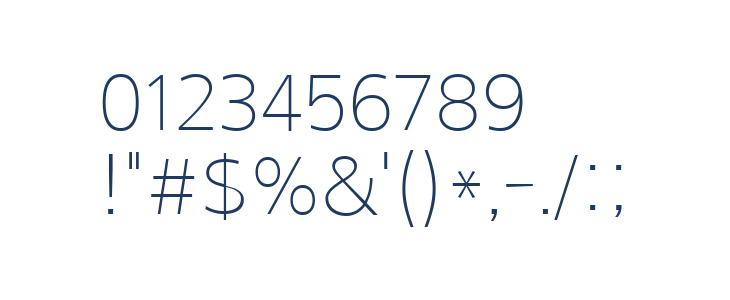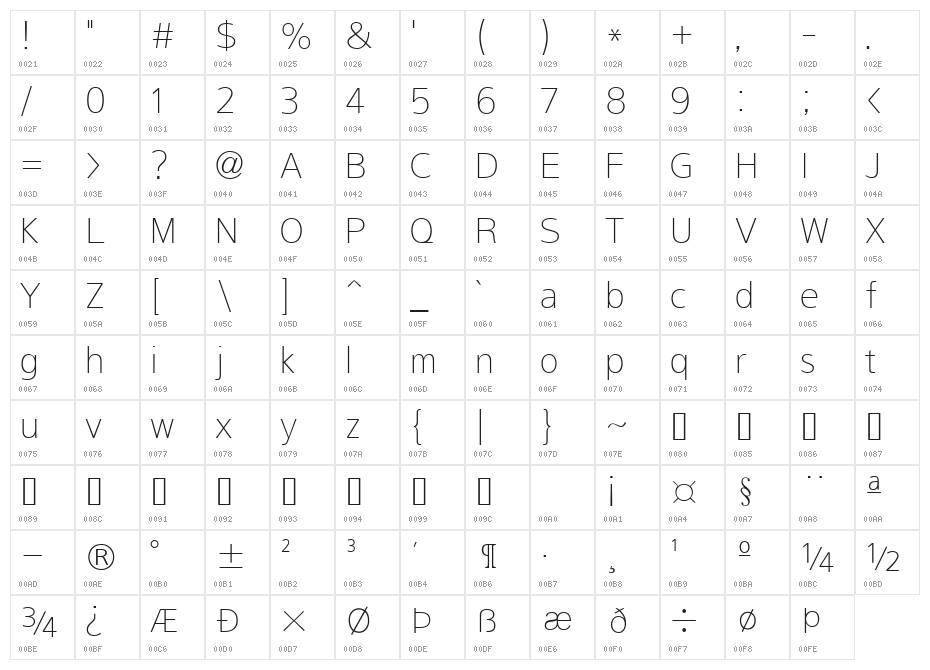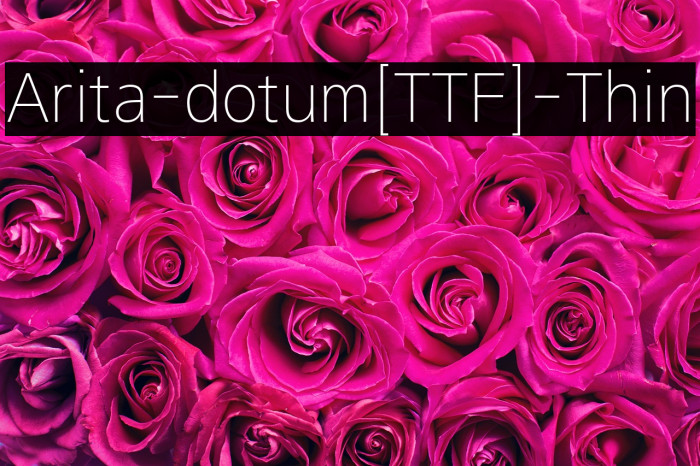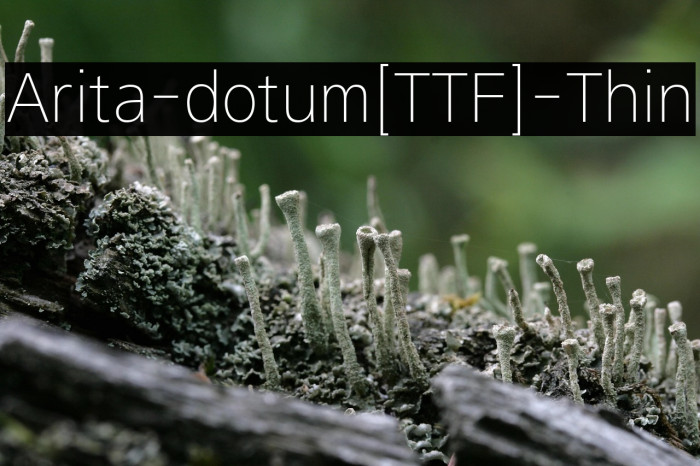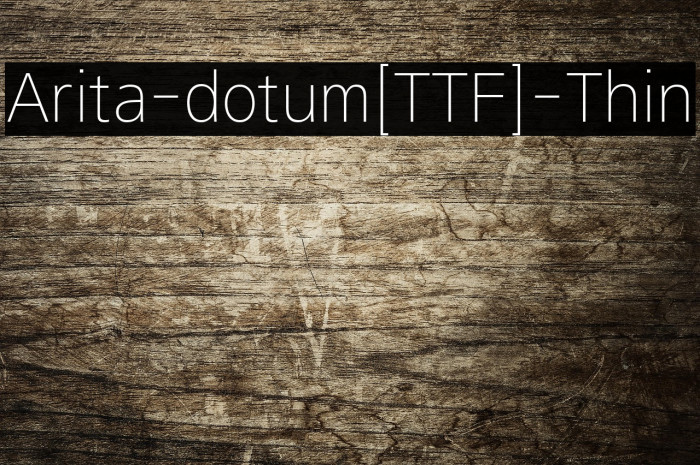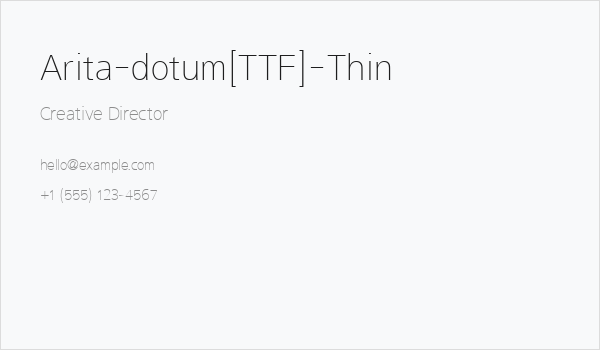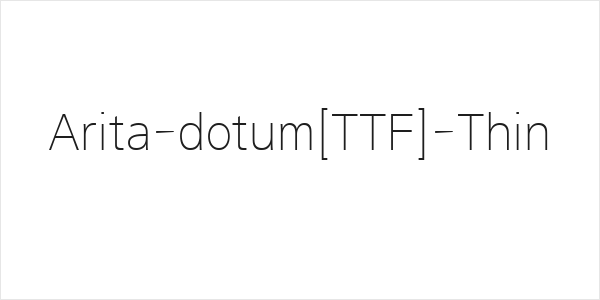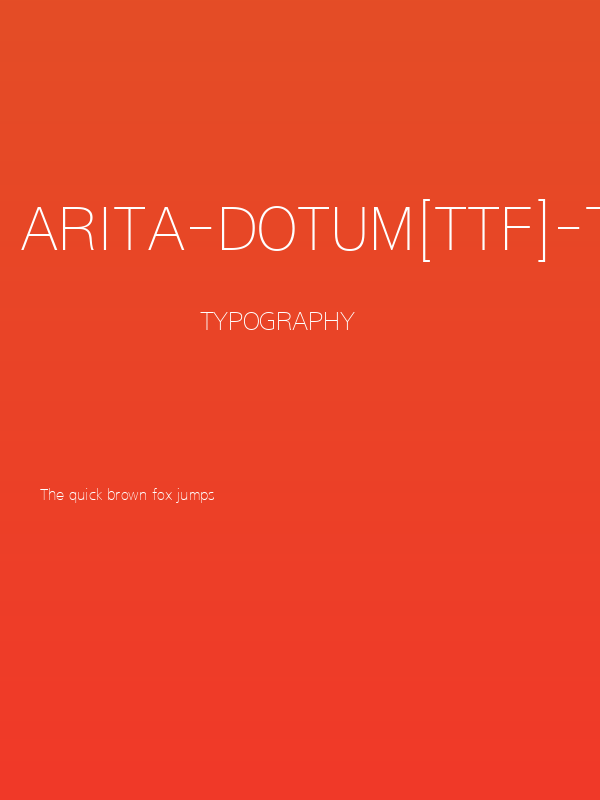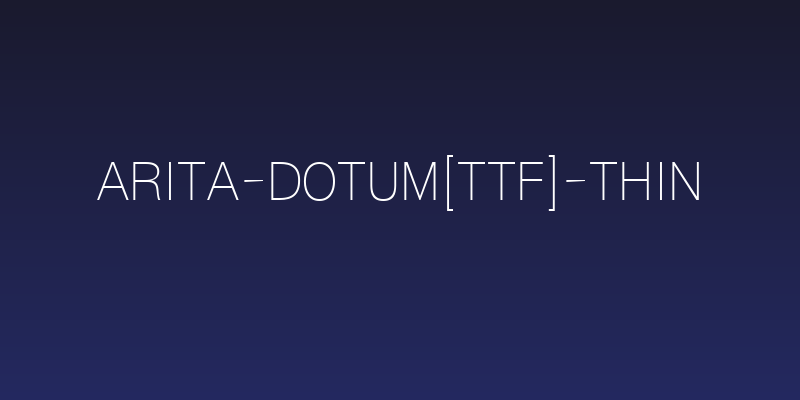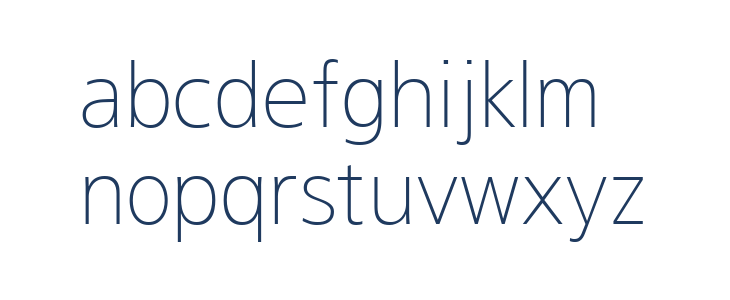
Arita-dotum[TTF]-Thin Font
Arita-dotum[TTF]-Thin Description
This font exhibits a clean and modern sans-serif style with thin and elegant strokes. The characters are well-proportioned, offering a harmonious balance between height and width. The uppercase letters are slightly taller than the lowercase, providing a clear distinction. The numerals are consistent with the overall style, maintaining readability. Special characters are designed with simplicity, ensuring they blend seamlessly with the rest of the typeface. The font's thin weight contributes to its airy and sophisticated appearance, making it suitable for contemporary design projects.
| Proposed Projects | Ideal for minimalist branding, editorial design, digital interfaces, and elegant print materials. |